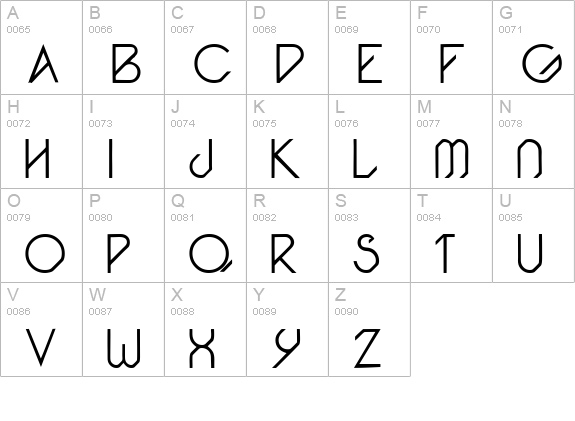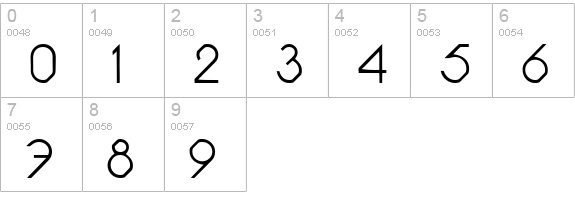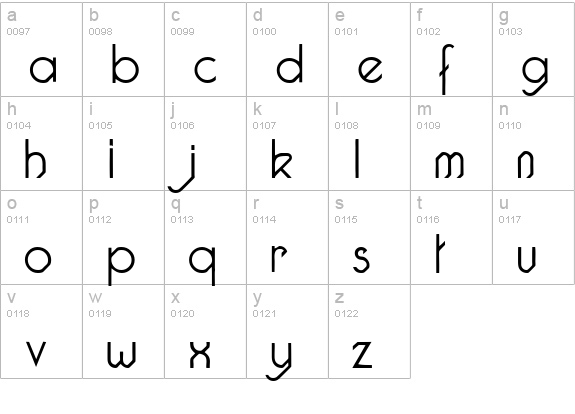
Pacotille light is a refined, elegant variant in the Pacotille typeface family \xE2\x80\x94 well suited to elegant body text, refined sub-headings, and luxury branding.
Pacotille Light is a modern and elegant font that exudes sophistication and style. With its sleek lines and contemporary design, this font is perfect for any project that requires a touch of class. The light weight of the font adds a subtle and delicate touch to your text, making it stand out while still maintaining a sense of refinement. What sets Pacotille Light apart is that it is not only visually stunning, but also completely free to download. You can easily access this beautiful font at FontsMarket.com, where you can add it to your collection without any cost. Whether you are working on a branding project, a website design, or any other creative endeavor, Pacotille Light is sure to elevate your work and leave a lasting impression. Download it now and see the difference it can make in your designs!